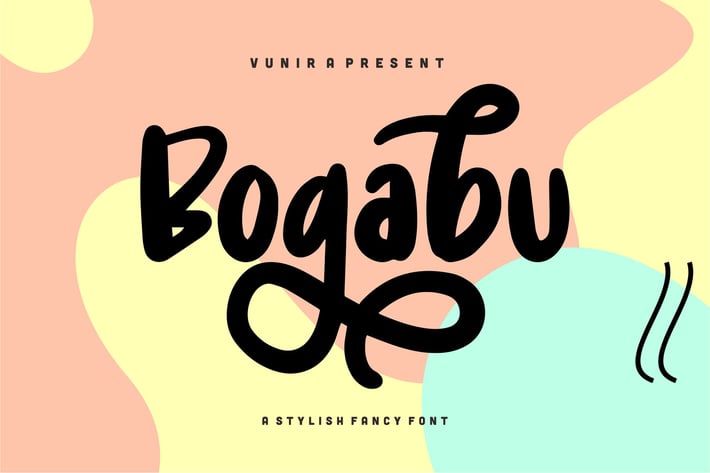
Bogabu | A Stylish Fancy Font
Bogabu | A Stylish Fancy Font with a calligraphy style, So beautiful on invitation like greeting cards, branding materials, business cards, quotes, posters, and more!